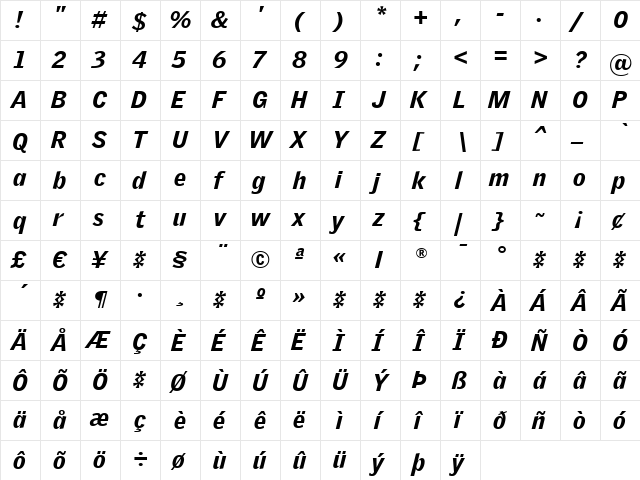
GriffithGothic Black Italic
Design Context for GriffithGothic Typeface
GriffithGothic has the quiet confidence of well-executed sans-serif typography: versatile, unobtrusive, and dependable at any size. The dynamic lean of this cut emphasises speed and emphasis in any layout.
Font Pairing: Works well alongside a characterful serif or display font that can carry the expressive load while GriffithGothic handles the functional copy.
Pro Tip: Use GriffithGothic for UI labels, navigation, and short-form body copy where clean legibility is the priority.